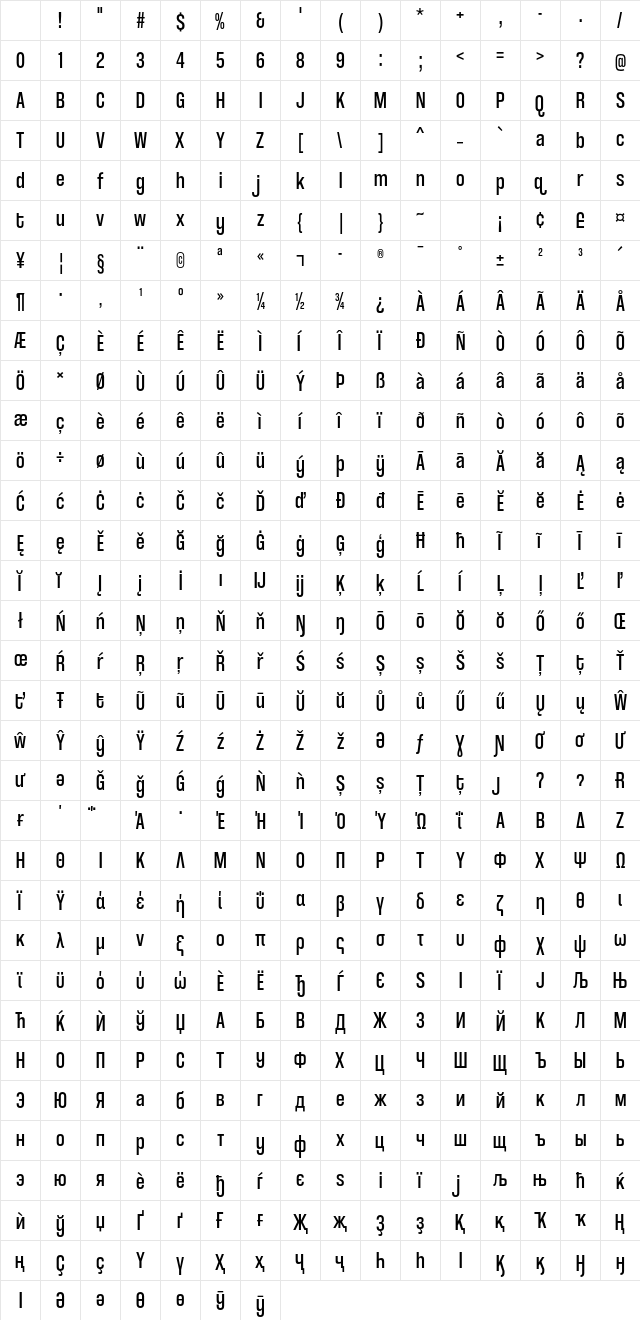
Complete Coolvetica Cond Regular glyph index. Displaying only characters natively supported by Coolvetica Cond Regular font.
Coolvetica Cond is a composed and adaptable typeface that performs quietly and consistently across a wide range of design contexts. Its narrow stance lets it pack a punch even in space-constrained designs.